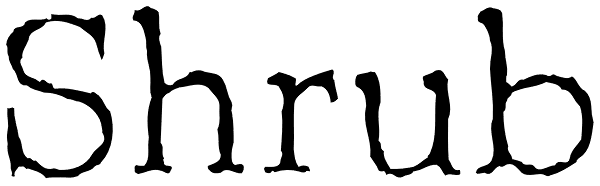
Shrub
The new OpenType font Shrub feels like a printed, textural typestyle, influenced by the great slab-serif fonts of the 20th century and organic, messy effects of old Xerox copiers. You might call this one a “multi-messter font” because it not only...